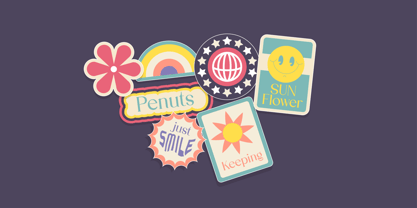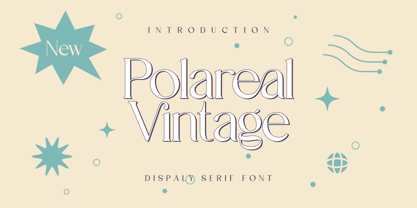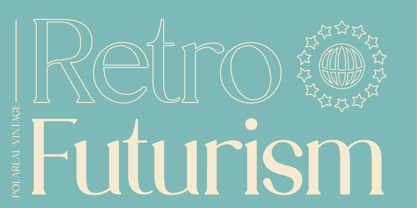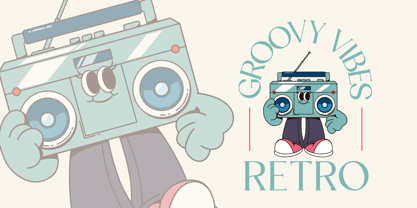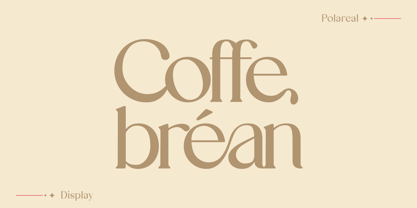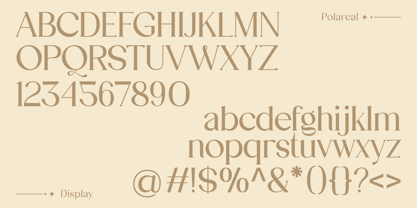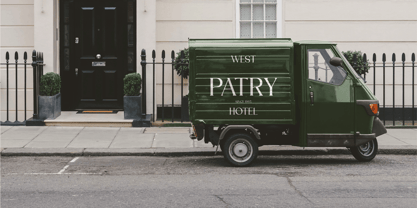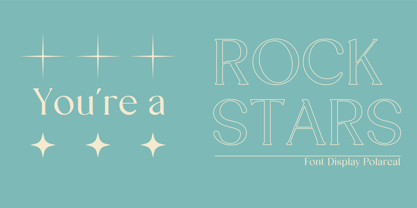
Polareal
by Gifari
The Polareal Font Family was designed by Ikhsan Algifari and published by Gifari. Polareal contains 1 styles. More about this family
Polareal Vintage typeface that blends the bold charm of 70s vintage aesthetics with contemporary flair, perfect for designs that demand both nostalgia and sophistication. Featuring dynamic curves, precise details, and extensive multilingual support (including numerals, symbols, and diacritics), this versatile font excels in branding, packaging, editorial layouts, and digital media.Polareal is optimized for crisp on-screen display and elegant print applications—ideal for logos, posters, social media quotes, and eye-catching headlines. Grab it now with early-bird pricing and infuse your projects with fresh retro energy